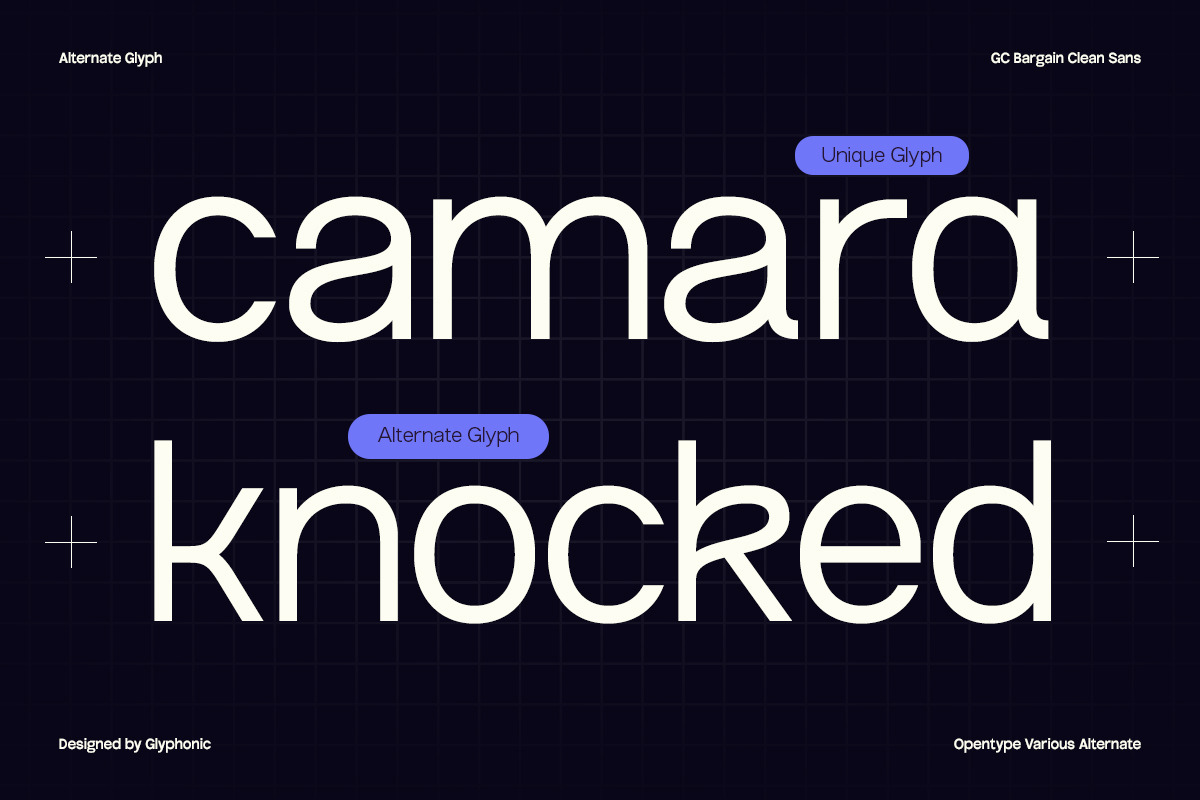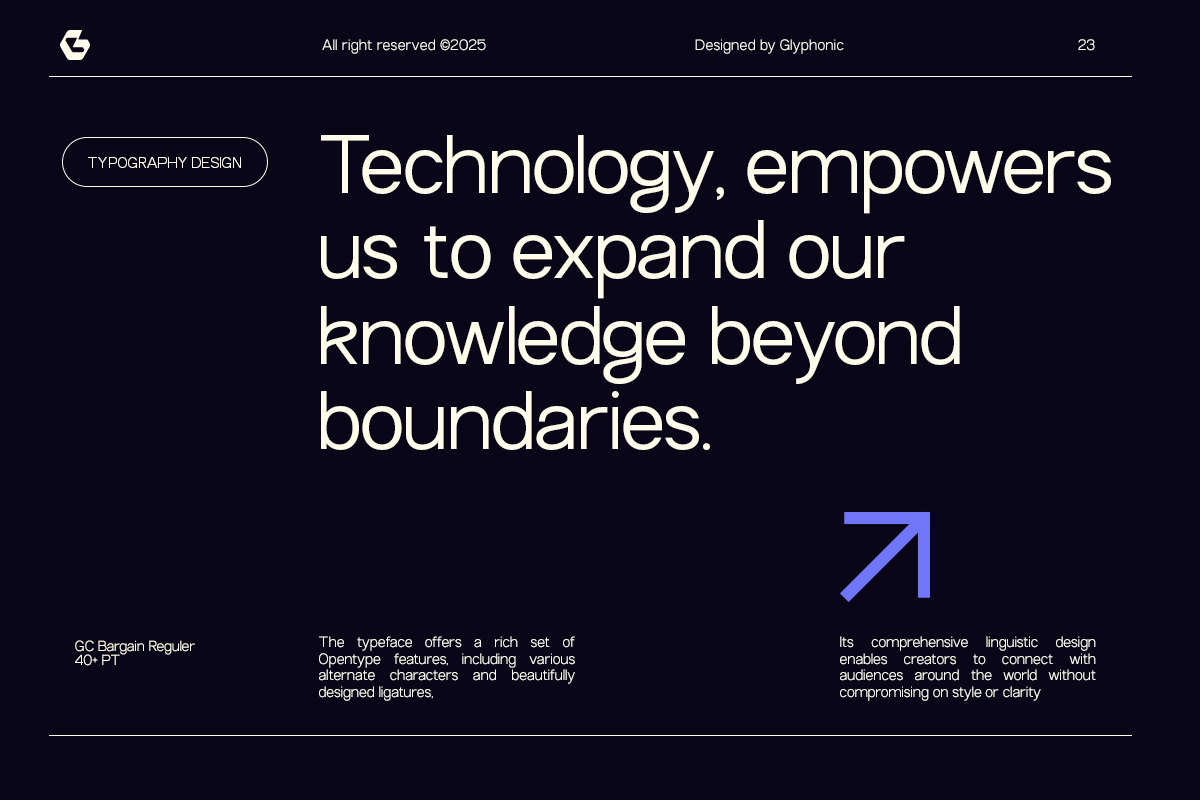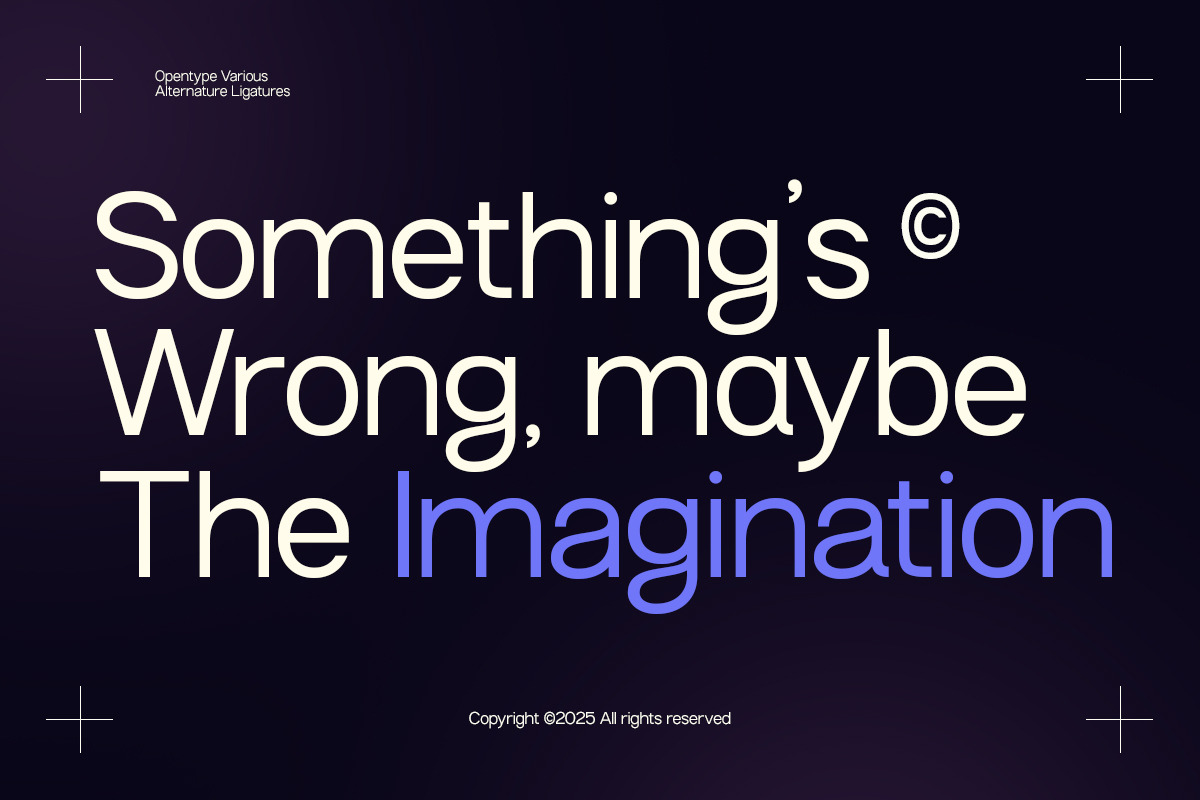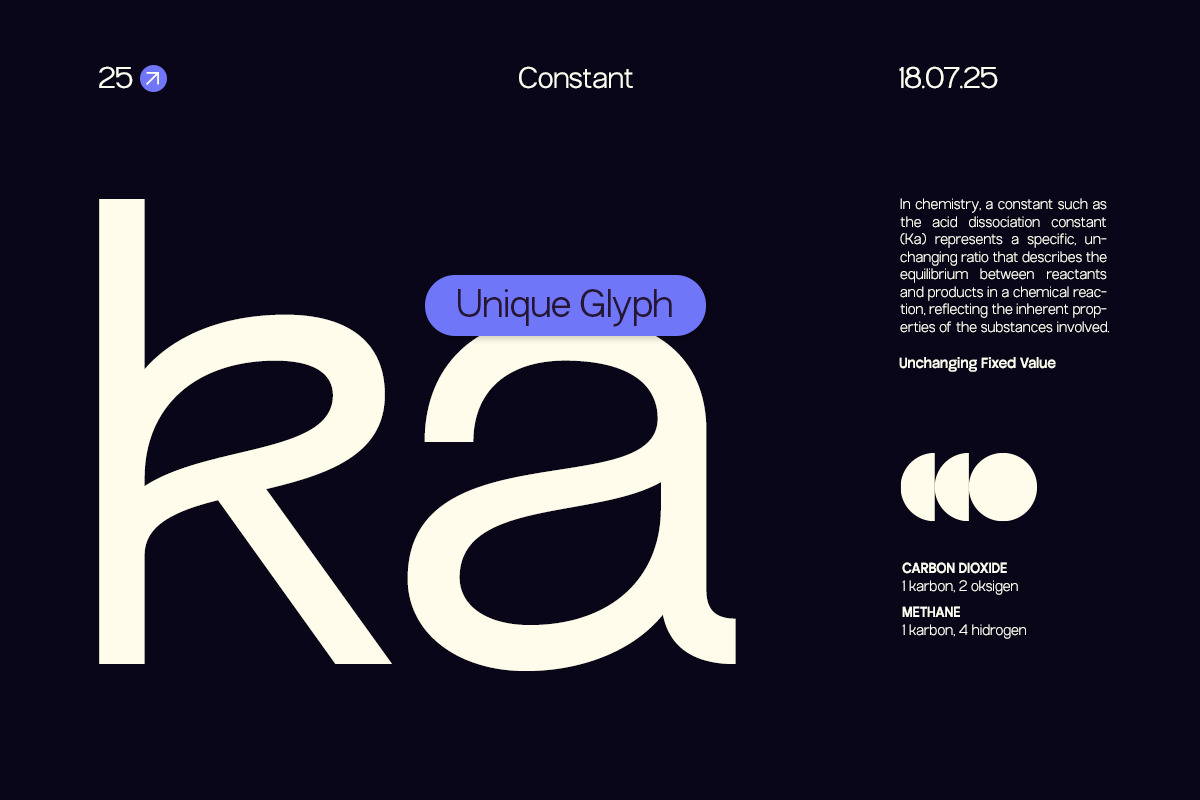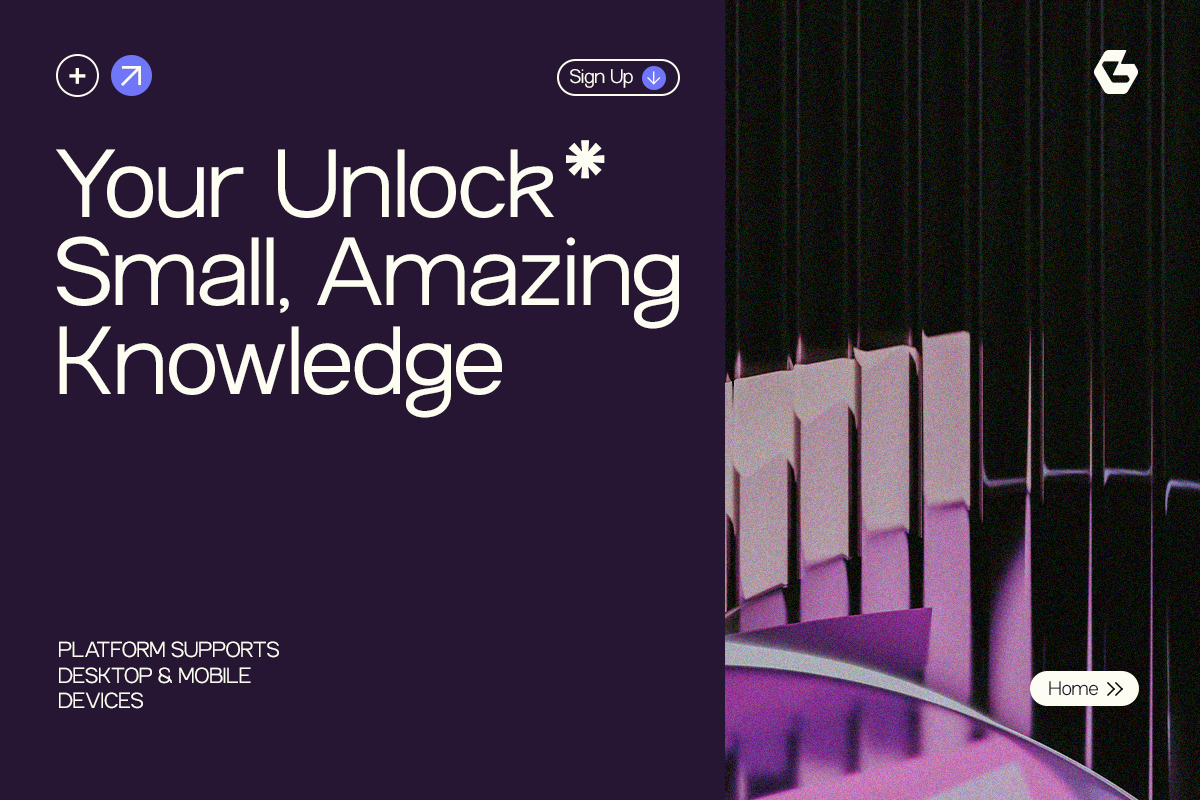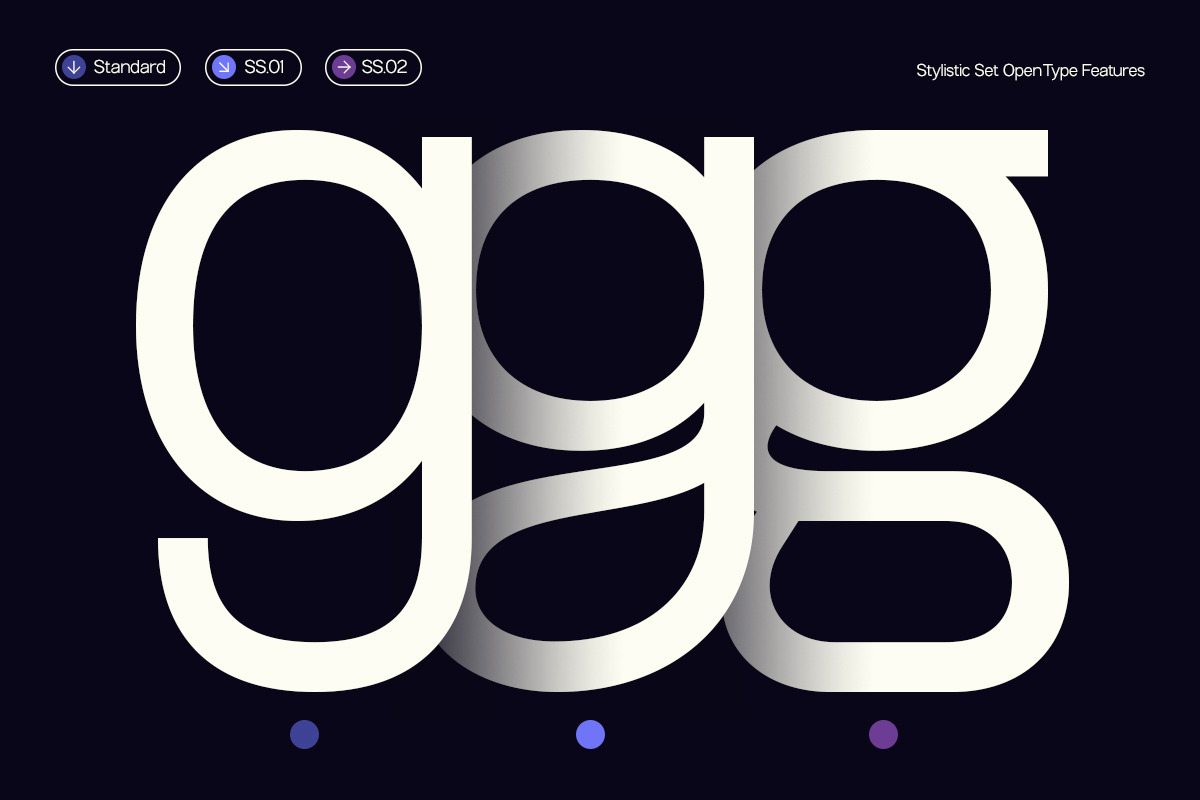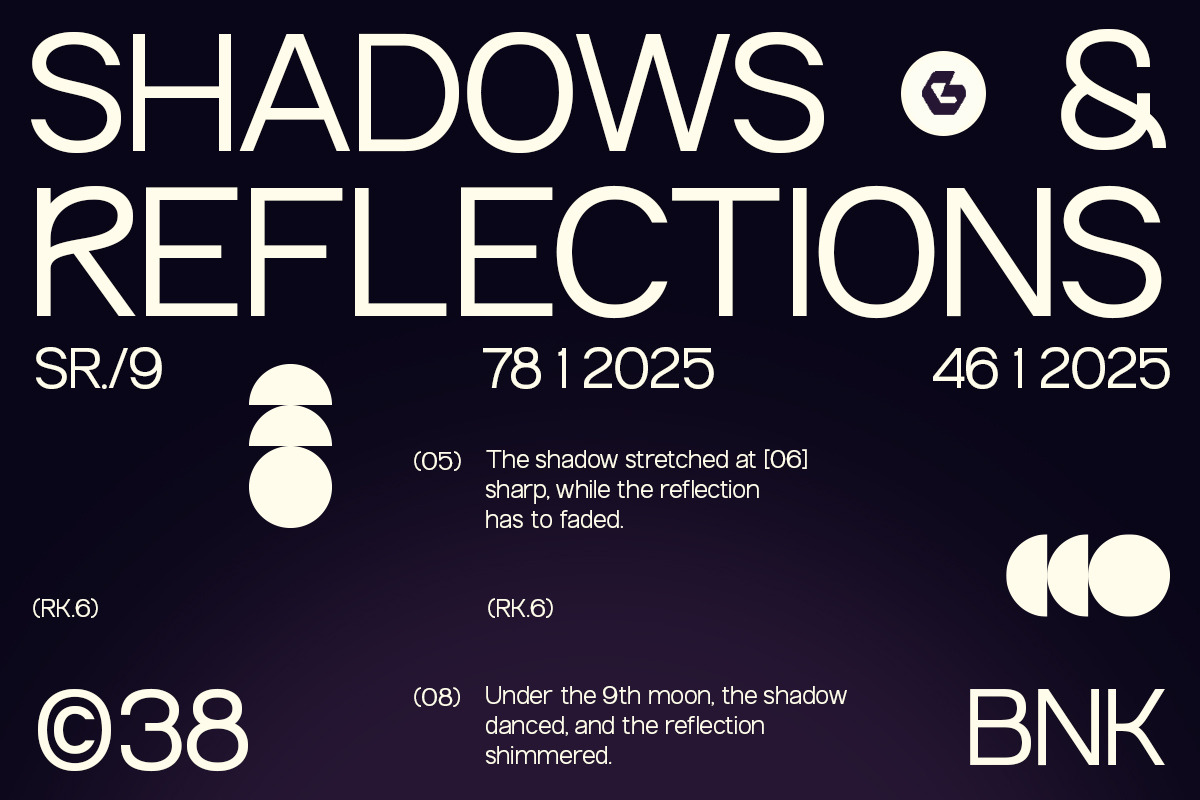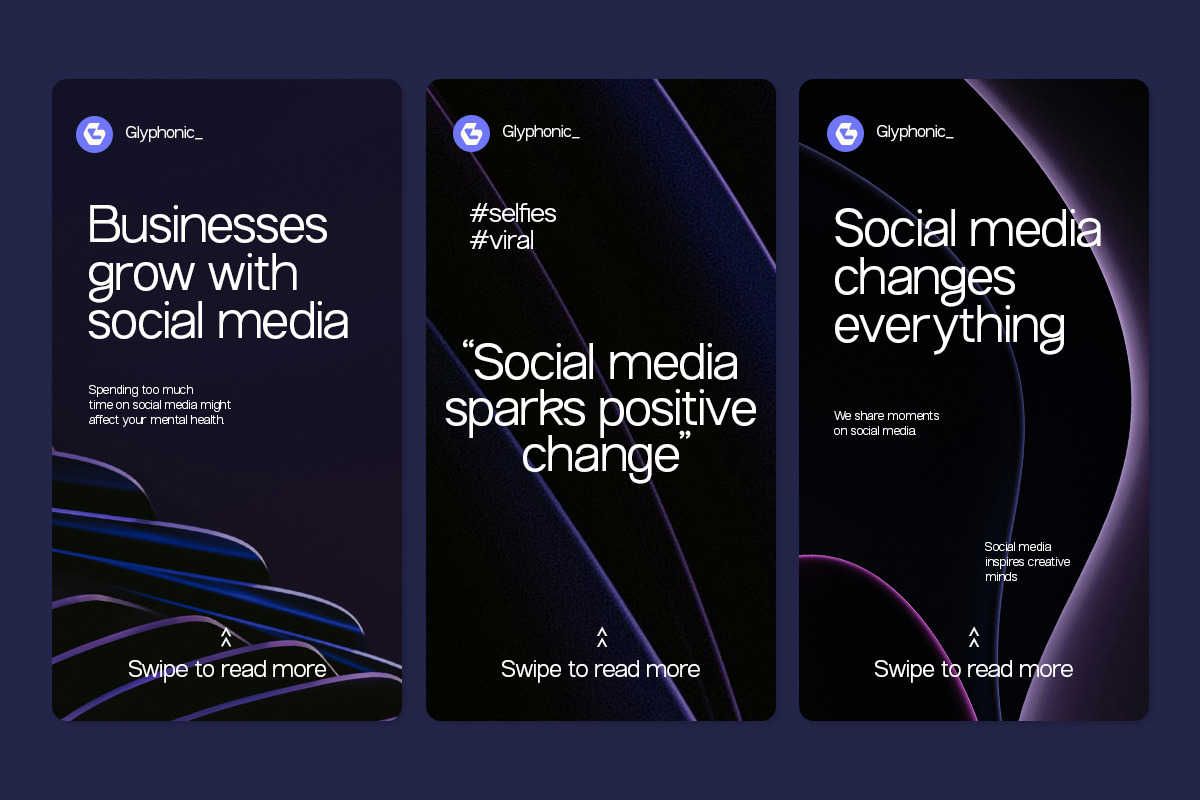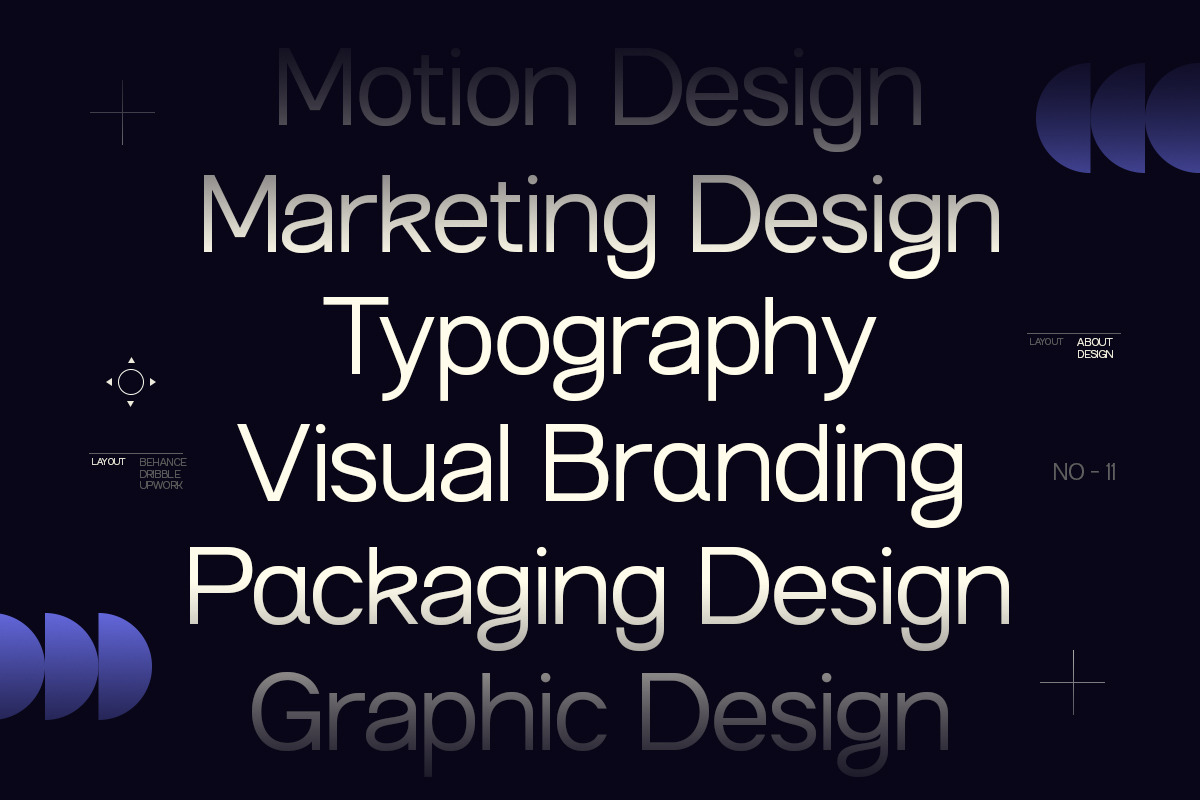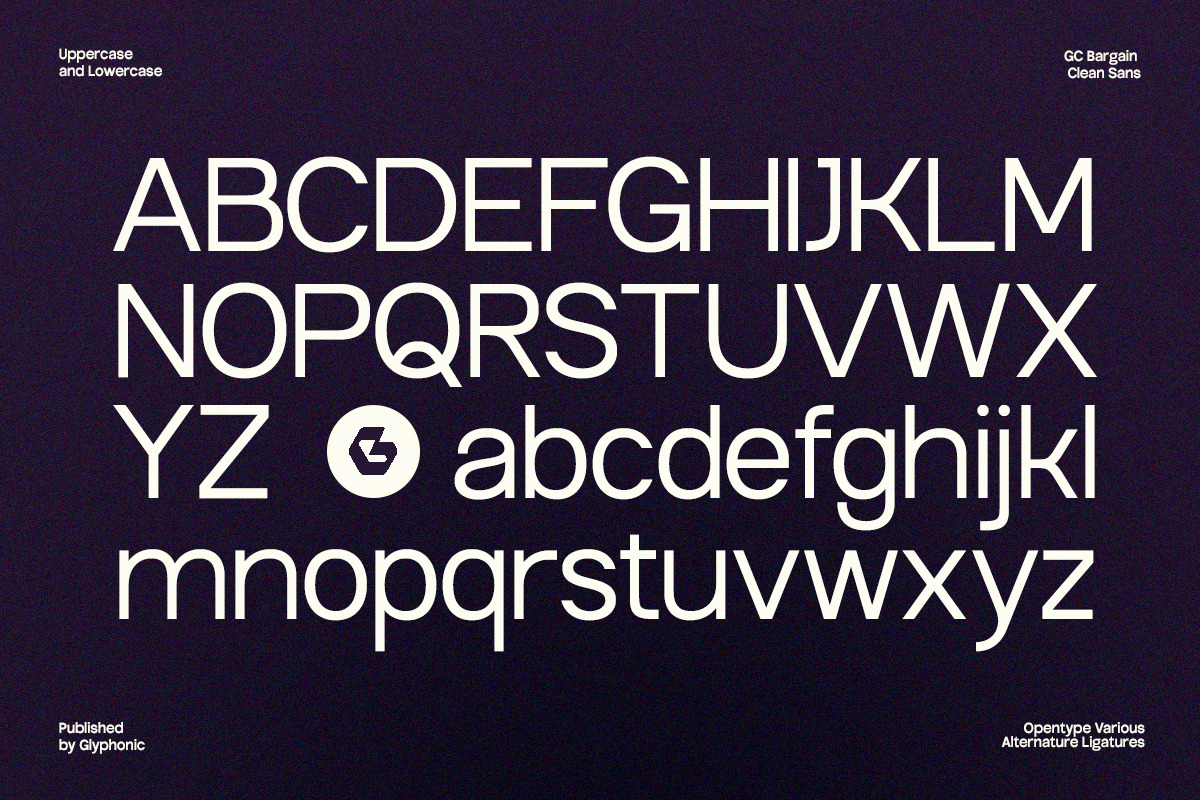
GC Bargain - Clean Sans Typeface
GC Bargain is a clean sans-serif typeface that blends modern simplicity with functional clarity. Built for versatility and readability, it’s perfectly suited for headlines, branding, logos, packaging, editorial layouts, and user interfaces—crafted to deliver a clear and confident visual message.
With its low-contrast strokes, generous spacing, and balanced proportions, GC Bargain offers a straightforward yet stylish appearance. The letterforms are designed to look sleek and neutral, making this typeface a great choice for modern design systems, tech branding, minimalist layouts, and everyday creative projects.
- Ligatures & Stylistic Alternates
Make your design bold, refined, and timeless with GC Bargain.